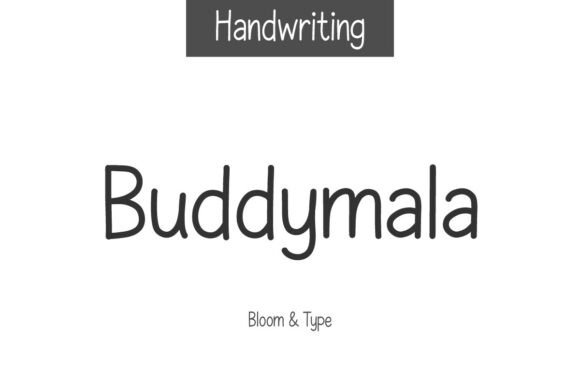
The Perfect Font for Creative Projects: A Deep Dive into Buddymala
Have you ever been in the middle of a design project, and suddenly, it hits you – the font you’ve chosen just isn’t right? I recall a particularly frustrating experience while working on a branding project for a local bakery. The client wanted a friendly, approachable feel, but the fonts I was using just didn’t capture that warmth. That’s when I stumbled upon Buddymala, a playful handwritten font that instantly resonated with the project’s vibe. In this article, we’ll explore what makes Buddymala a fantastic choice for designers, crafters, and creative hobbyists alike.
What Makes Buddymala Special?
Buddymala is designed to bring warmth, friendliness, and a touch of creativity to your projects. Its smooth curves and casual flow make it feel like natural handwriting, yet it maintains clarity and readability. This versatility makes it perfect for adding a personal and approachable feel to any design.
An Honest Review of Buddymala
• ✅ Warm and Friendly: Buddymala’s smooth curves and casual flow give it a natural, handwriting feel that’s perfect for projects needing a personal touch.
• ✅ Highly Versatile: This font adapts effortlessly to different styles, making it suitable for logos, branding, invitations, social media posts, and more.
• ✅ Easy to Read: Despite its casual vibe, Buddymala maintains clarity and readability, ensuring your message gets across clearly.
• ✅ Balances Simplicity and Character: It’s perfect for both modern and casual projects, offering a unique charm that sets it apart.
While Buddymala is an excellent font, there are a few things to keep in mind:
• 🤔 Limited Formality: Given its playful nature, Buddymala might not be the best fit for very formal projects or corporate branding.
• 🤔 Requires Attention to Spacing: For optimal readability, you might need to adjust the spacing between letters, especially in larger text sizes.
The Story Behind Buddymala
Buddymala was created with the intention of capturing the essence of natural handwriting in a digital format. The designer aimed to produce a font that felt both approachable and creative, suitable for a wide range of projects. Inspired by everyday handwritten notes and letters, Buddymala brings a touch of personal warmth to digital designs.
Q: Is Buddymala suitable for corporate branding?
A: While Buddymala is versatile, its playful nature might not suit very formal corporate branding. However, for businesses looking to convey a friendly, approachable image, it can be a great choice.